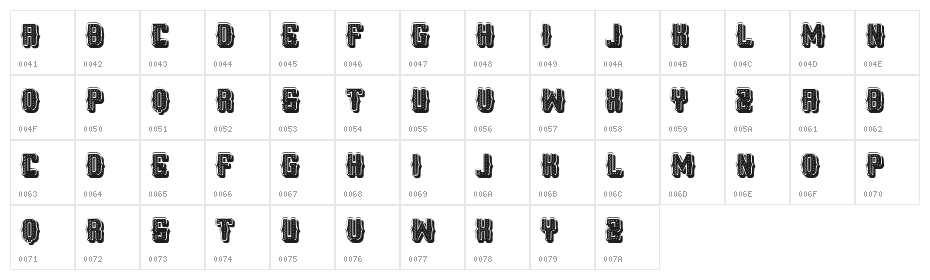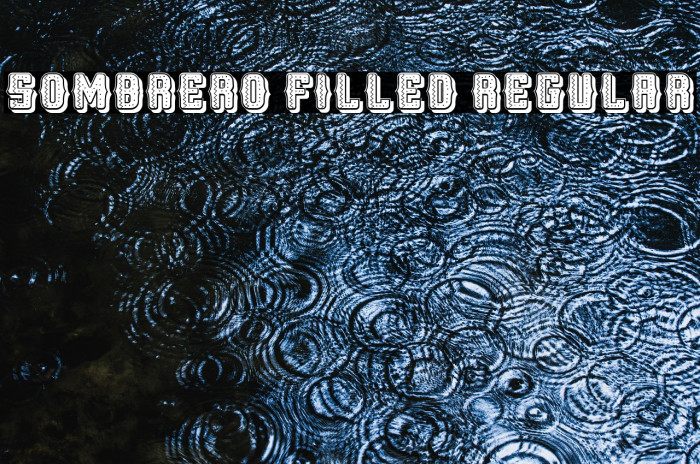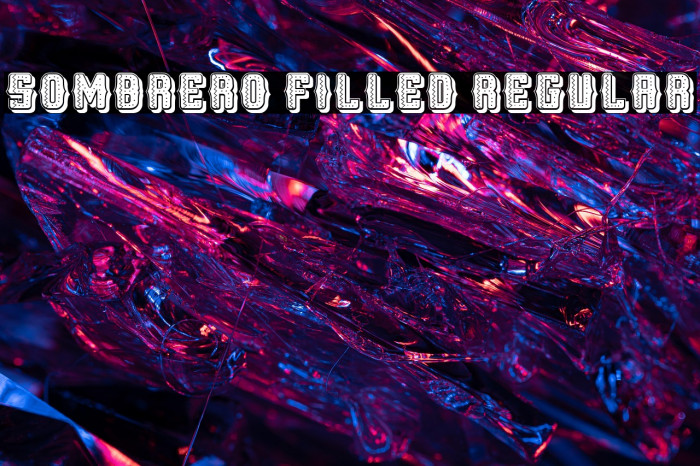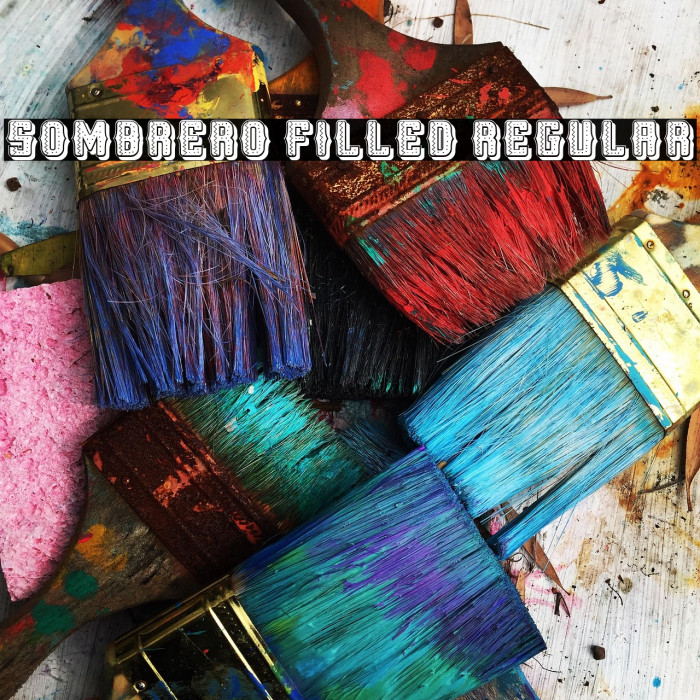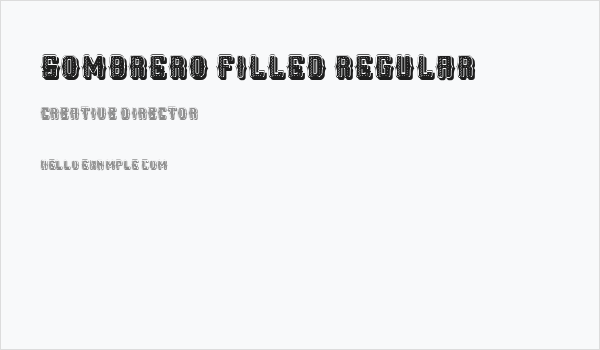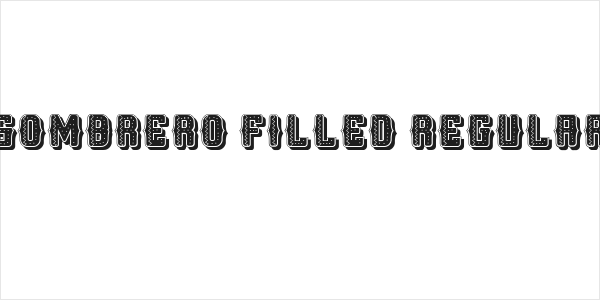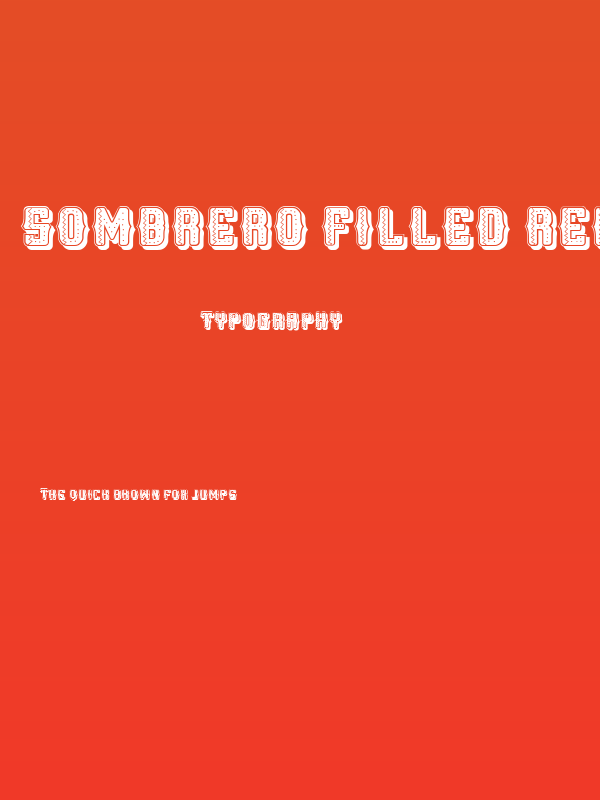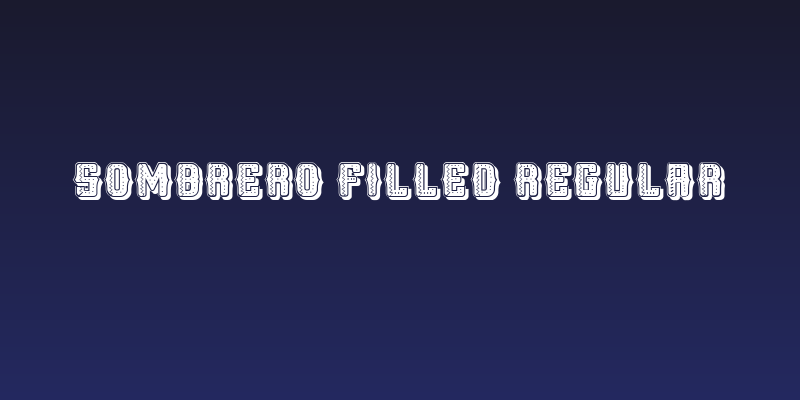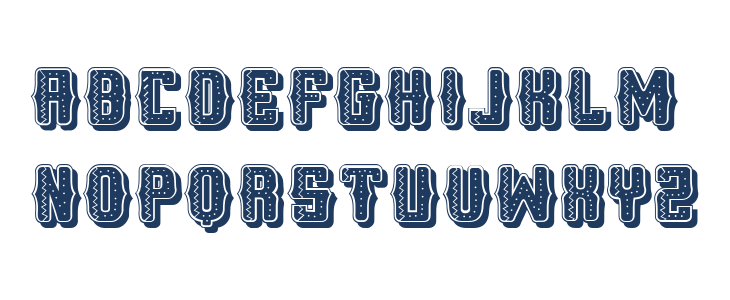
Sombrero Filled Regular Font
Sombrero Filled Regular Description
This font features a bold, decorative style with a playful and festive appearance. Each character is filled with intricate patterns and designs reminiscent of traditional Mexican motifs, giving it a lively and vibrant feel. The letters are outlined with a thick border, enhancing their visibility and making them stand out. The font's unique design elements make it ideal for projects that require a touch of cultural flair and creativity. Its boldness ensures readability while maintaining an artistic and whimsical aesthetic.
| Proposed Projects | Ideal for event posters, cultural festival promotions, themed party invitations, and branding for businesses seeking a lively and unique identity. |